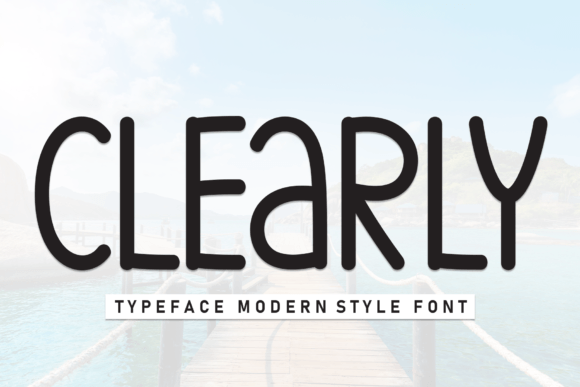
Adding a Personal Touch to Your Designs
Have you ever stumbled upon a font that makes you feel like you’re writing a love letter to your best friend? For designers, this is often the moment when inspiration strikes and creativity flows. I still remember the first time I laid eyes on Clearly Font – its playful, handwritten style immediately caught my attention.
Clearly Font is a charming display font designed to bring a touch of warmth and friendliness to any design. Whether you’re crafting wedding invitations, birthday cards, or social media graphics, this font is sure to add a fun and personal touch. Its versatility makes it a valuable asset for designers looking to elevate their work and connect with their audience on a deeper level.
Clearly Font Key Features
- Font Family: Clearly Font is a sans-serif font family designed for optimal readability, available in various styles.
Designer Review: Clearly Font
Clearly Font is a clean and modern sans-serif typeface that’s perfect for digital interfaces. ✨ Its simplicity makes it highly legible, even at small font sizes. The font’s neutral design also lends itself well to various branding styles, from minimalistic to bold.
Here are some of the key strengths of Clearly Font:
- ✨ Highly legible, making it ideal for body text and UI elements
- ✨ Neutral design that adapts to various branding styles
- ✨ Clean lines and minimal ornamentation for a modern aesthetic
However, Clearly Font also has some limitations:
- ⚠️ Limited character set, which may not be suitable for languages with complex scripts
- ⚠️ Not as expressive or emotive as other sans-serif fonts, which may limit its use in creative contexts
Overall, Clearly Font is a solid choice for digital design projects that require a clean and modern typeface. While it may not be the most exciting font, its simplicity and legibility make it a reliable option for designers looking for a neutral base.
Tips for Getting the Most Out of Clearly Font
Clearly Font is a versatile font that works well in a variety of contexts. Here are some tips for getting the most out of it:
- Use Clearly Font for body text to create a clean and readable design.
- Pair Clearly Font with a bold font for headings to create visual interest.
Clearly Font is a great choice for a variety of projects, including:
- Business cards and resumes
- Website design and development
Alternatives to Clearly Font for Designers
Open Sans is a modern sans-serif font that is highly legible and versatile. It is ideal for body text, headings, and titles. It is a popular choice for digital design, including websites, apps, and magazines. Open Sans is similar to Clearly Font in its simplicity and readability, but it has a more rounded and friendly feel.
Lato is a clean and elegant sans-serif font that is perfect for digital and print design. It is highly legible and works well for body text, headings, and titles. Lato is similar to Clearly Font in its simplicity and modern feel, but it has a more geometric and precise look.
Montserrat is a sans-serif font that is inspired by urban typography. It is highly legible and works well for body text, headings, and titles. Montserrat is similar to Clearly Font in its modern feel and simplicity, but it has a more condensed and geometric look.
Avenir Next
Avenir Next is a modern sans-serif font that is highly legible and versatile. It is ideal for body text, headings, and titles, and is a popular choice for digital design. Avenir Next is similar to Clearly Font in its simplicity and modern feel, but it has a more sleek and sophisticated look.